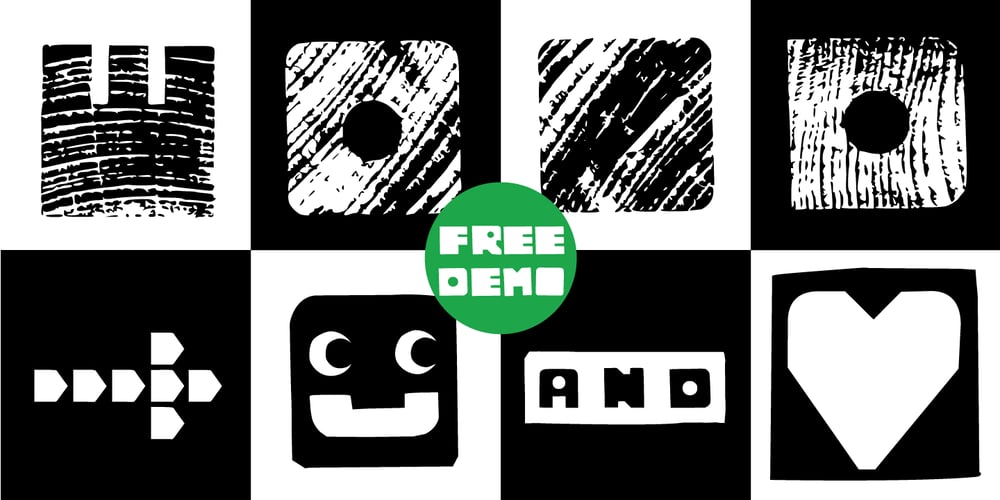
Kloetzchen Font Family was designed by Manuel Viergutz and published by TypoGraphicDesign. Kloetzchen contains 7 styles and family package options. The typeface Klötzchen (german word for blocks) is designed from 2020 for the font foundry Typo Graphic Design by Manuel Viergutz | Typo Graphic Design × Peter Eckartz | kleinholzTYPO as a political statement #climatejusticeThe display font based on the original wood letter from Peter Eckartz (kleinholzTYPO). The technic is called Reifendreherei from the Erzgebirge. Craft Tools like Hobel and Fräsmaschine. The idea based from Gert Schaaf (Spielzeugproduzent in Wittlich, 1970s).The font started from 41 wood letters (analog) and was finally digitalize and extended to 374 glyphs (digital).Thanks to Alex Branczyk for the Klötzchen.3 font-styles (Wood, Clean, Impact) + 1 icon-style with 374 glyphs (Adobe Latin 1) incl. 100+ decorative extras like icons, arrows, dingbats, emojis, symbols, geometric shapes (type the word #LOVE for ❤️or #SMILE for